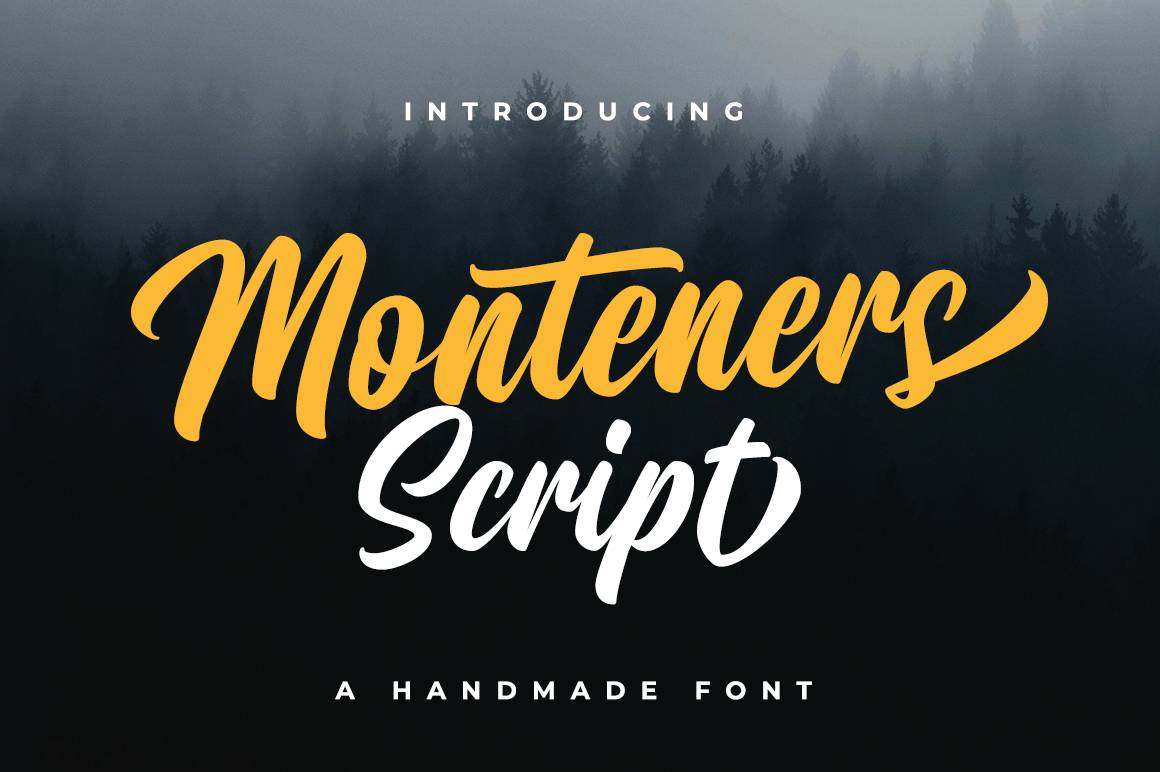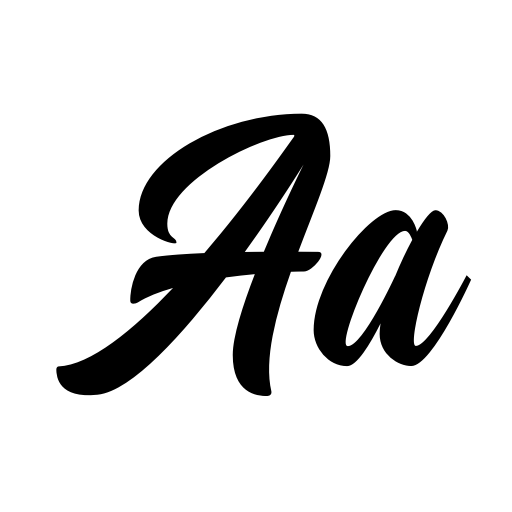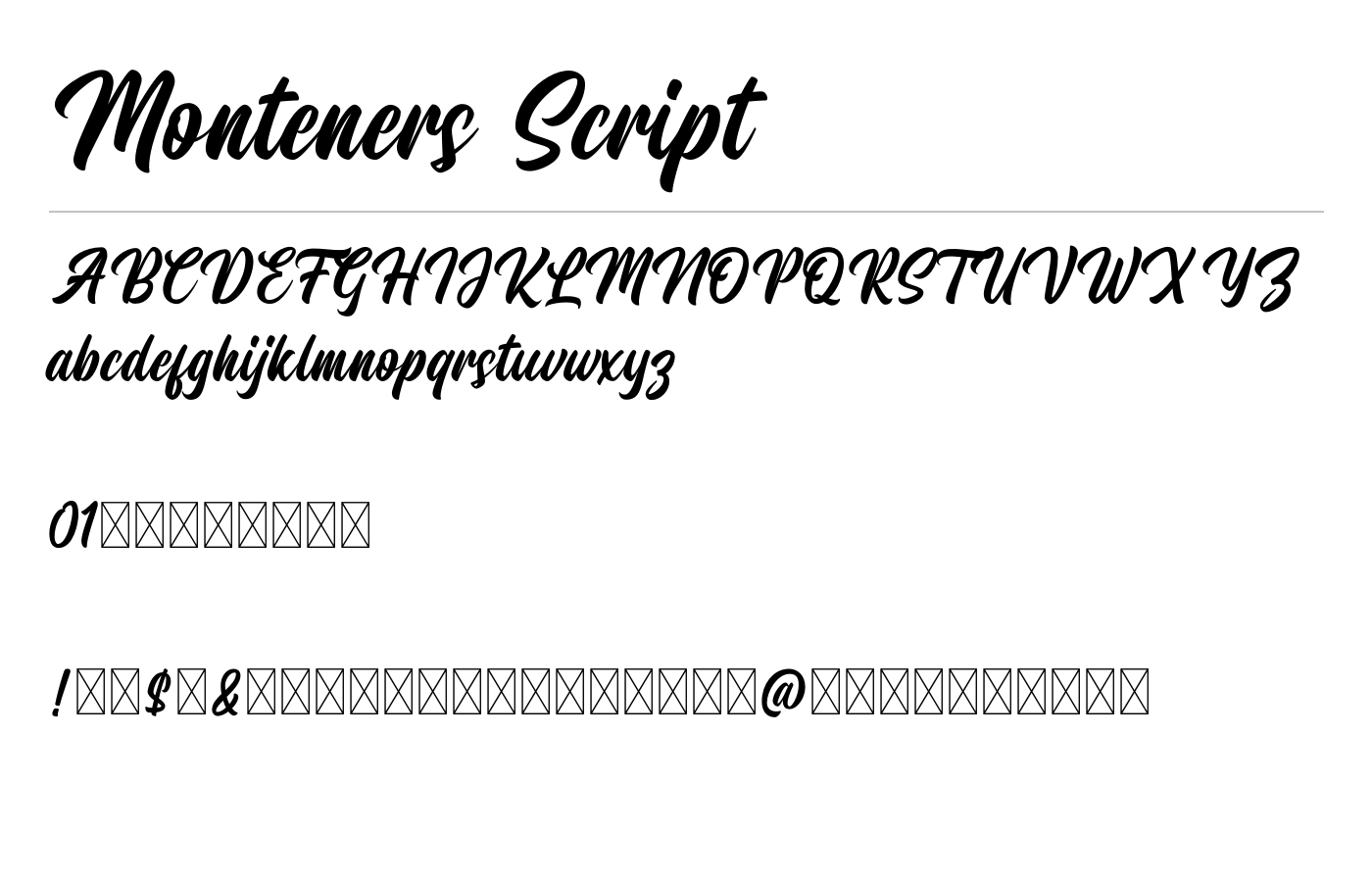
Monteners Script is a bold and elegant script font with smooth, flowing strokes that give it a handwritten, calligraphic feel. Its slightly condensed letterforms and moderate contrast create a refined yet approachable style, perfect for branding, invitations, and creative headlines that need a touch of sophistication and warmth. This font works well where a personal and stylish impression is desired, making it ideal for fashion, luxury, and lifestyle designs.
Monteners Script Font
About Monteners Script Font